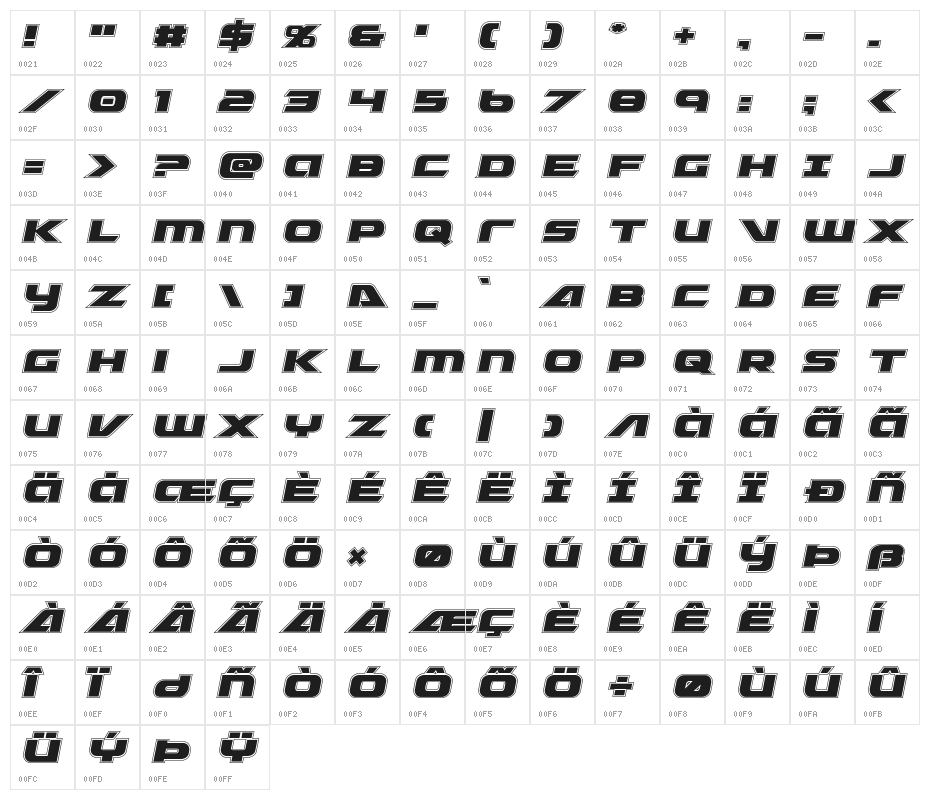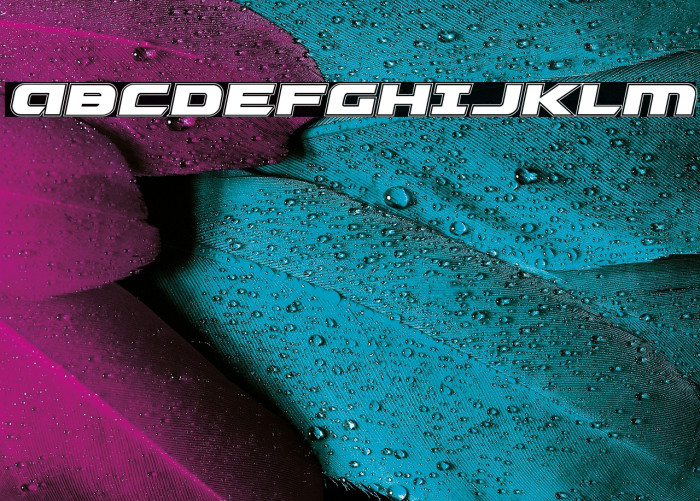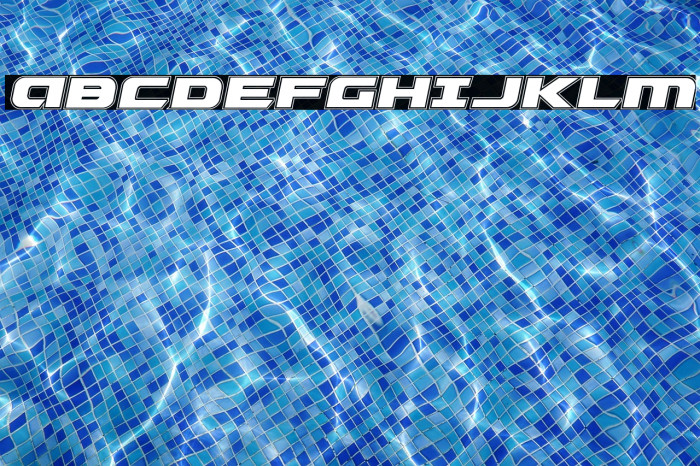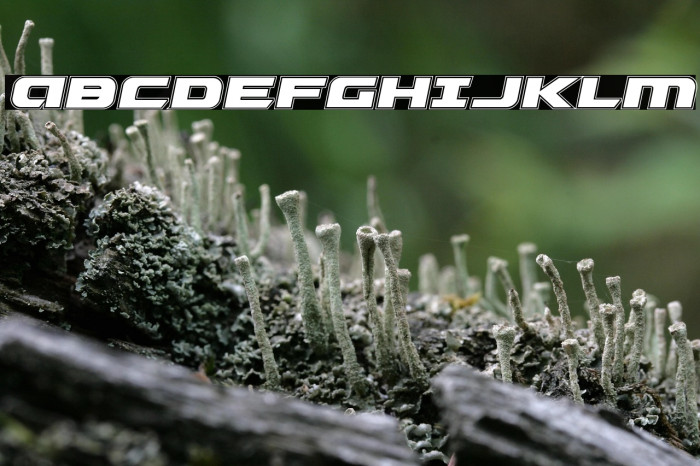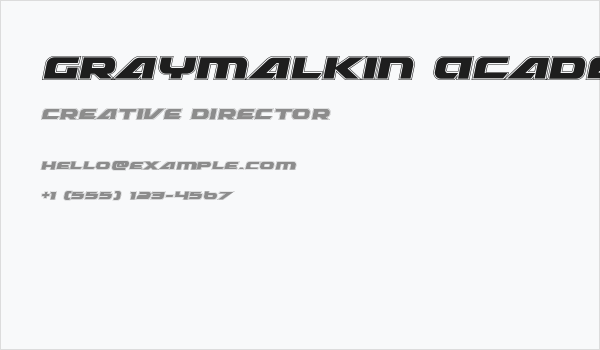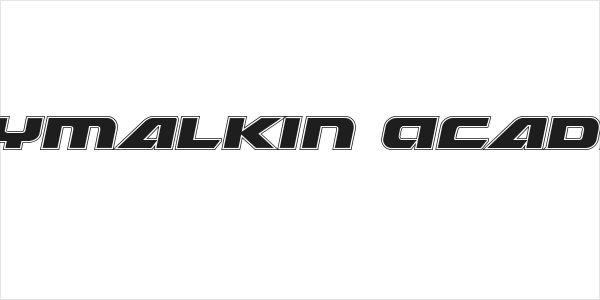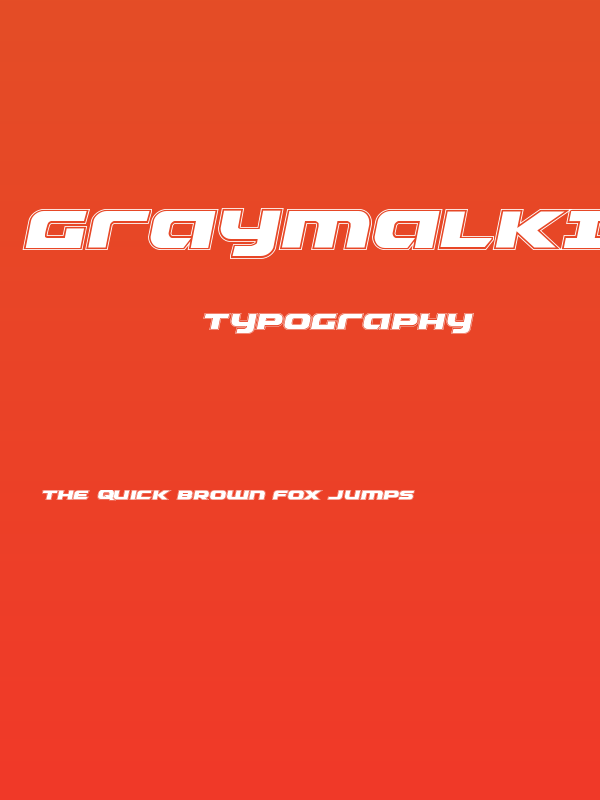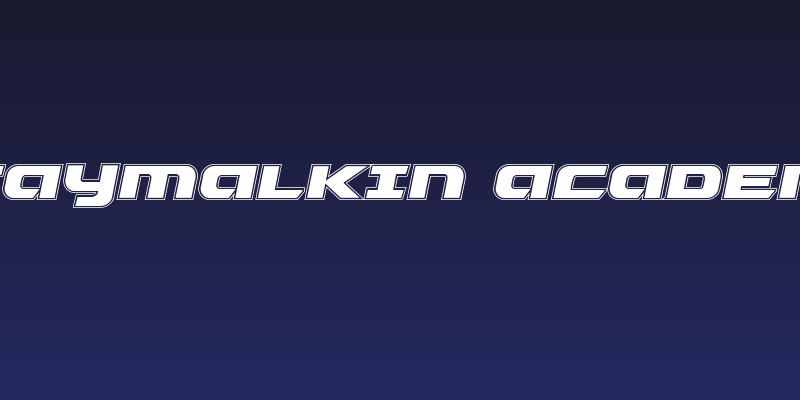
Graymalkin Academy Font
Graymalkin Academy Description
This font features a bold, futuristic design with a strong geometric influence. The characters are outlined with a thick border, giving them a three-dimensional appearance. The uppercase letters have a consistent height and width, while the lowercase letters maintain a similar style but with a slightly more compact form. The numbers and special characters follow the same design principles, ensuring uniformity across all glyphs. The font's distinct style makes it ideal for projects that require a modern and dynamic look.
| Proposed Projects | Ideal for sci-fi themed designs, video game titles, tech branding, and futuristic posters. |